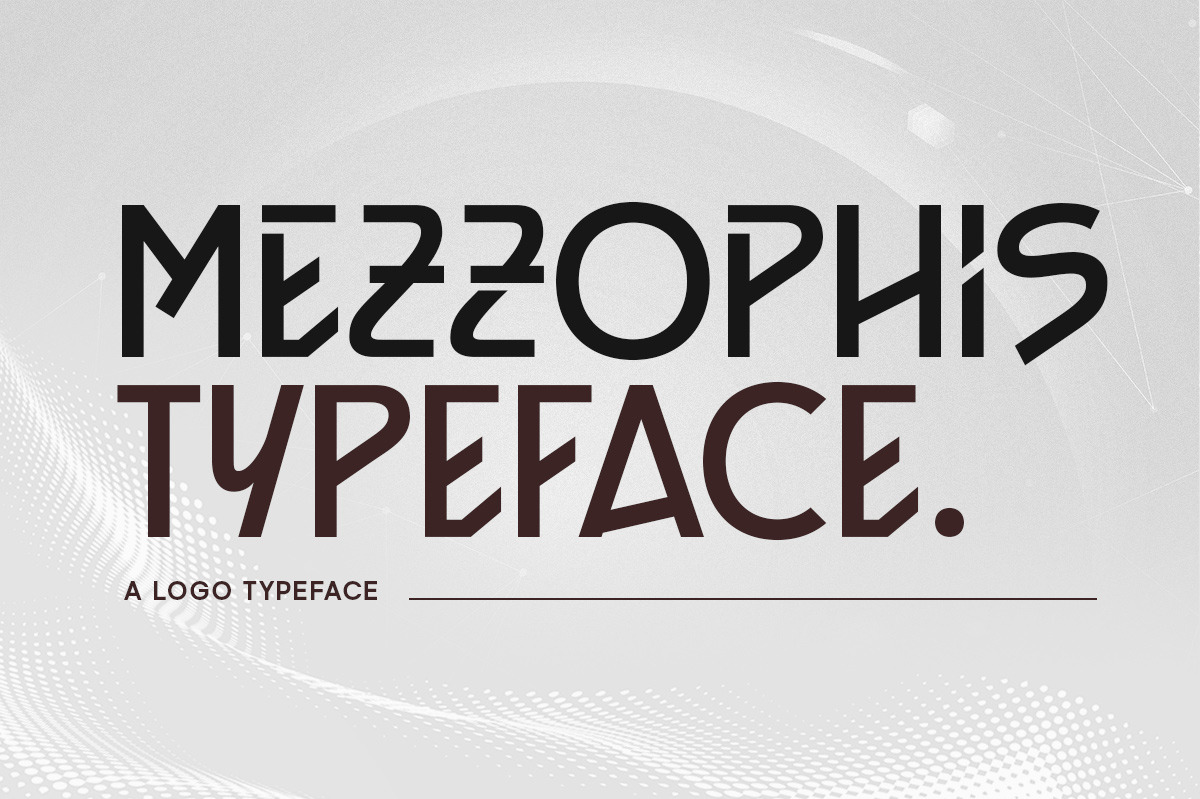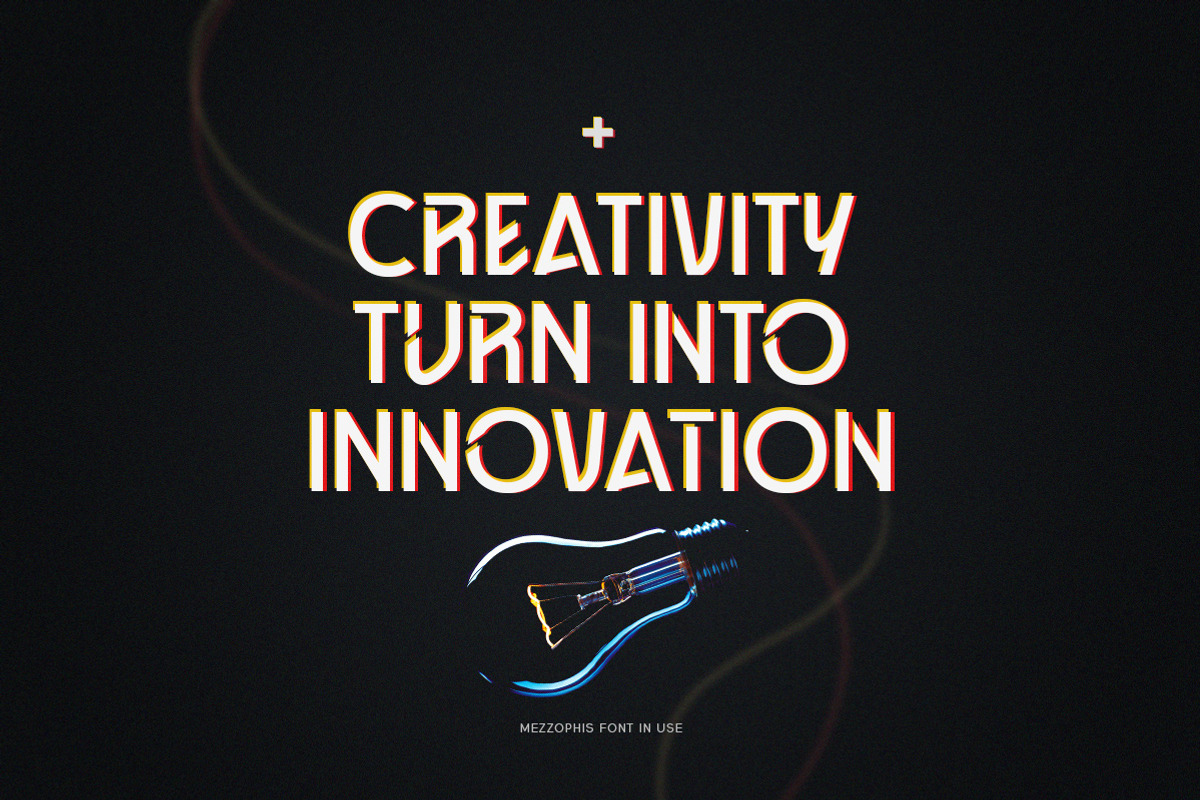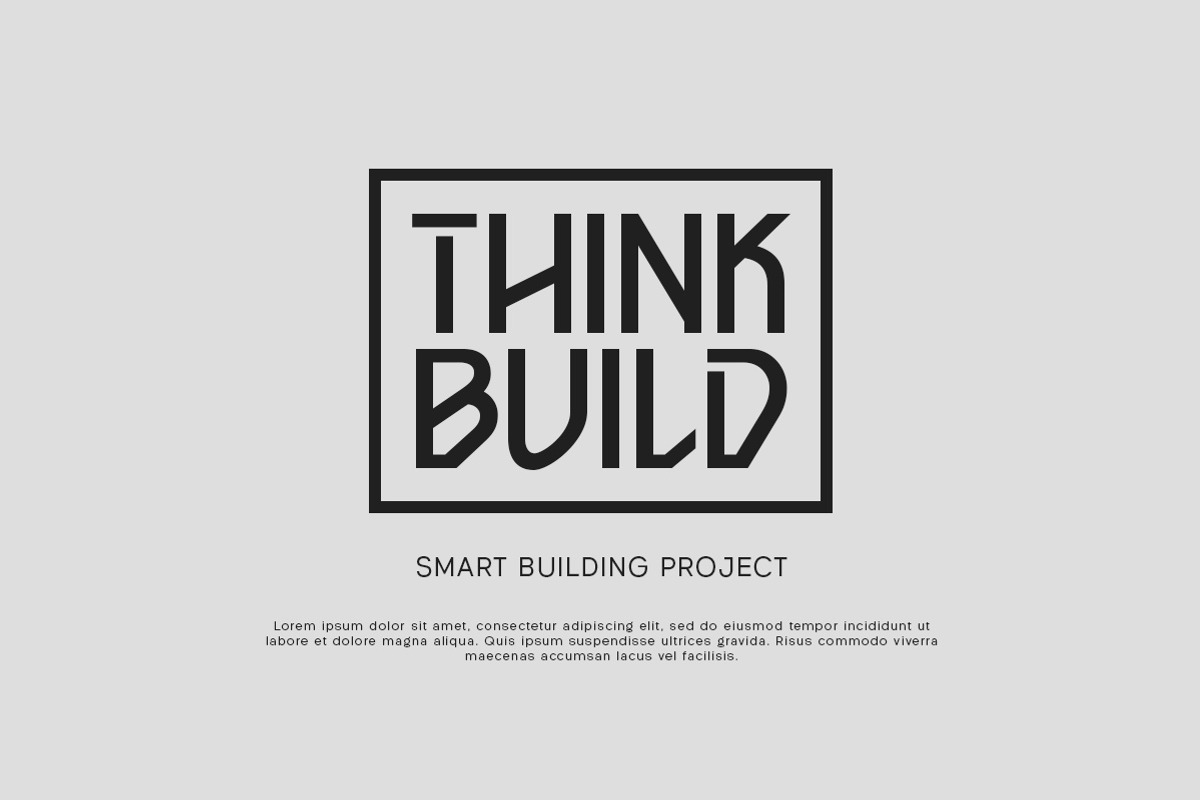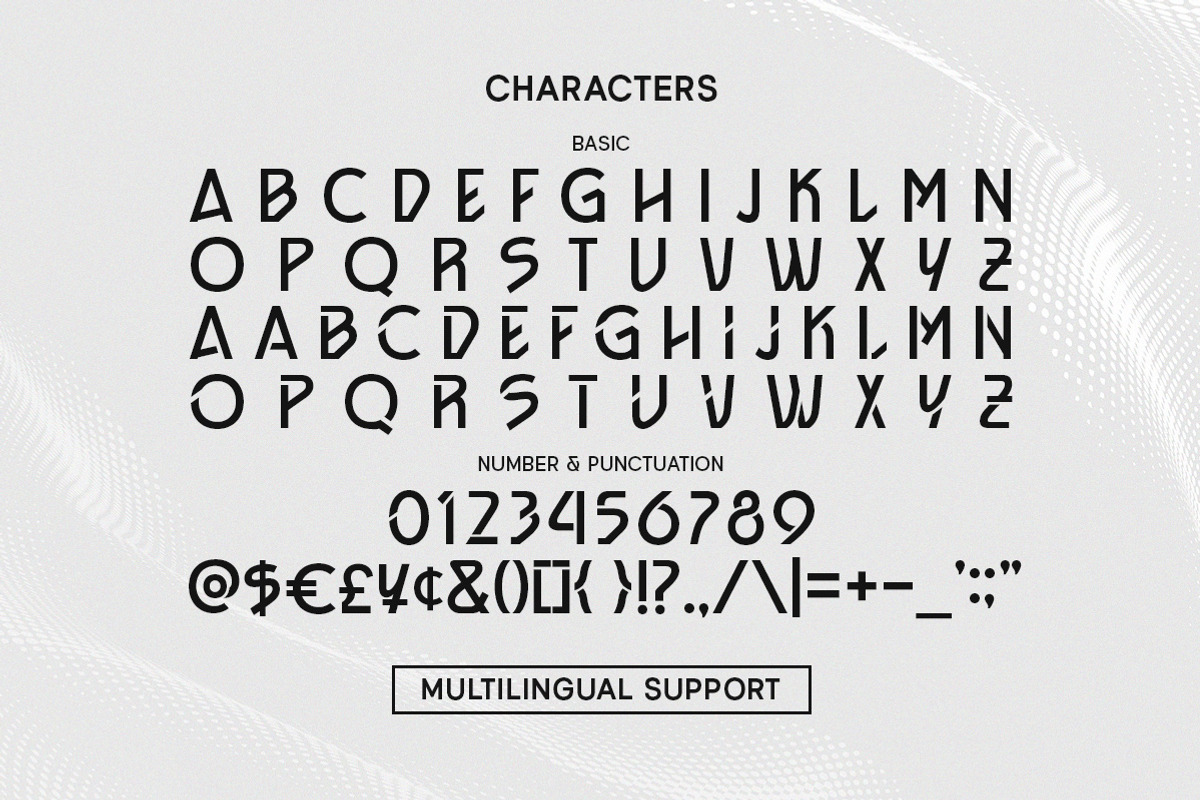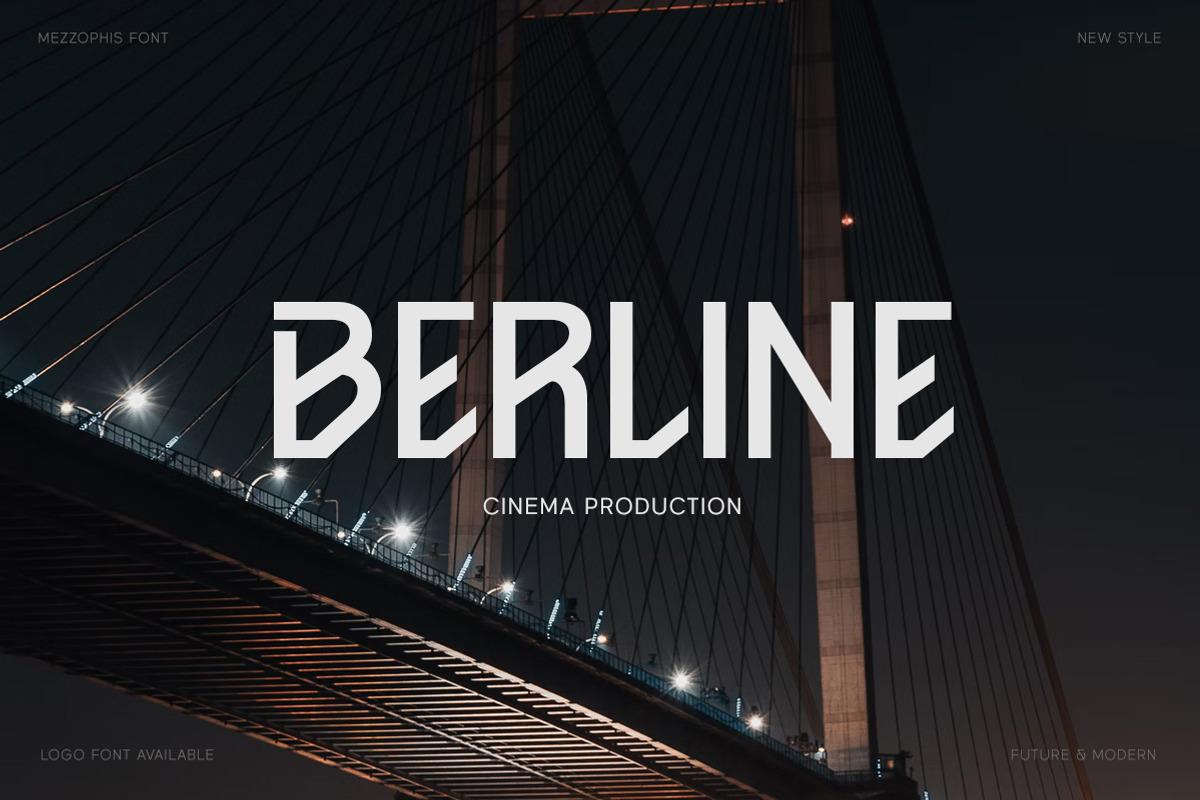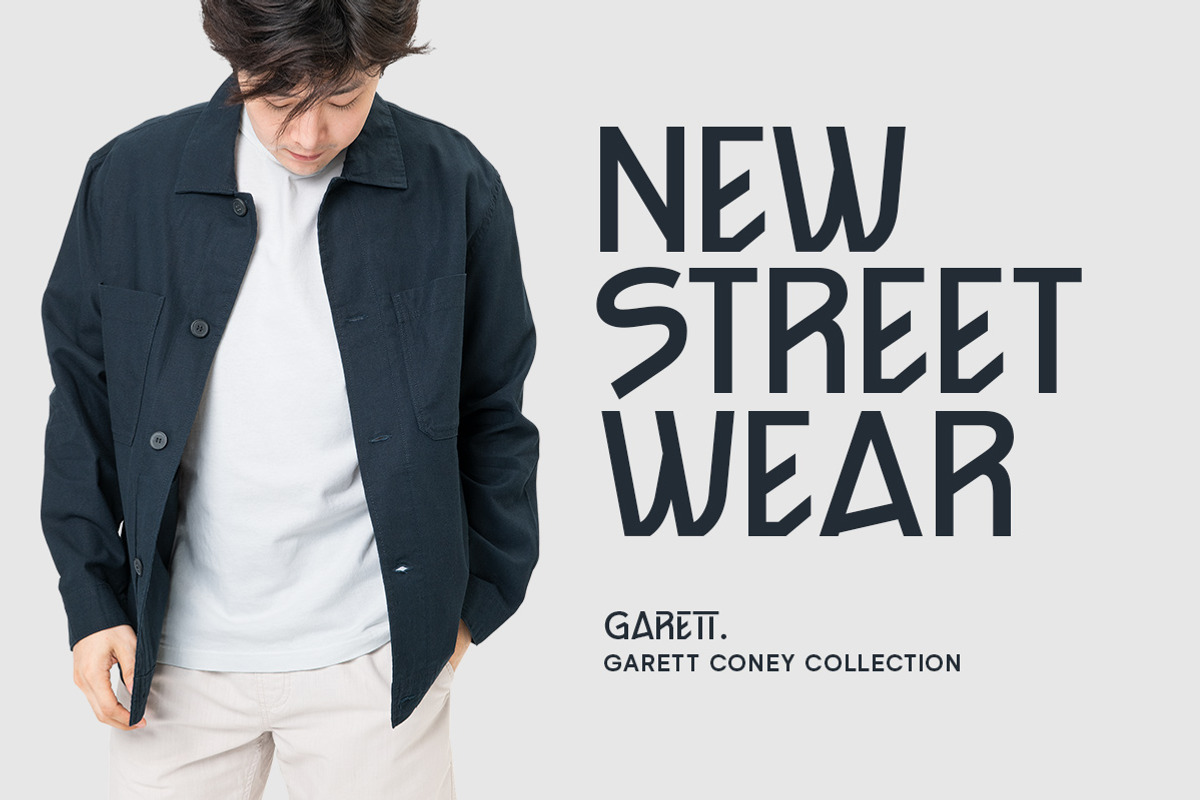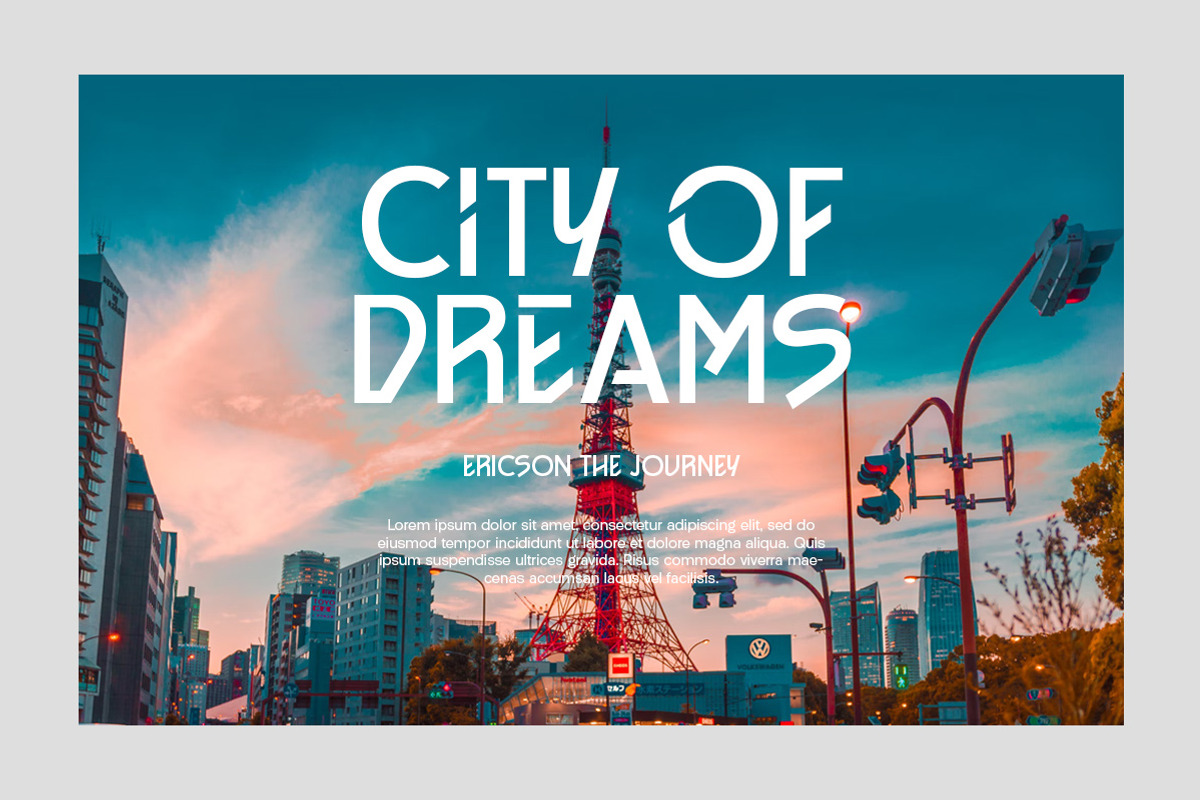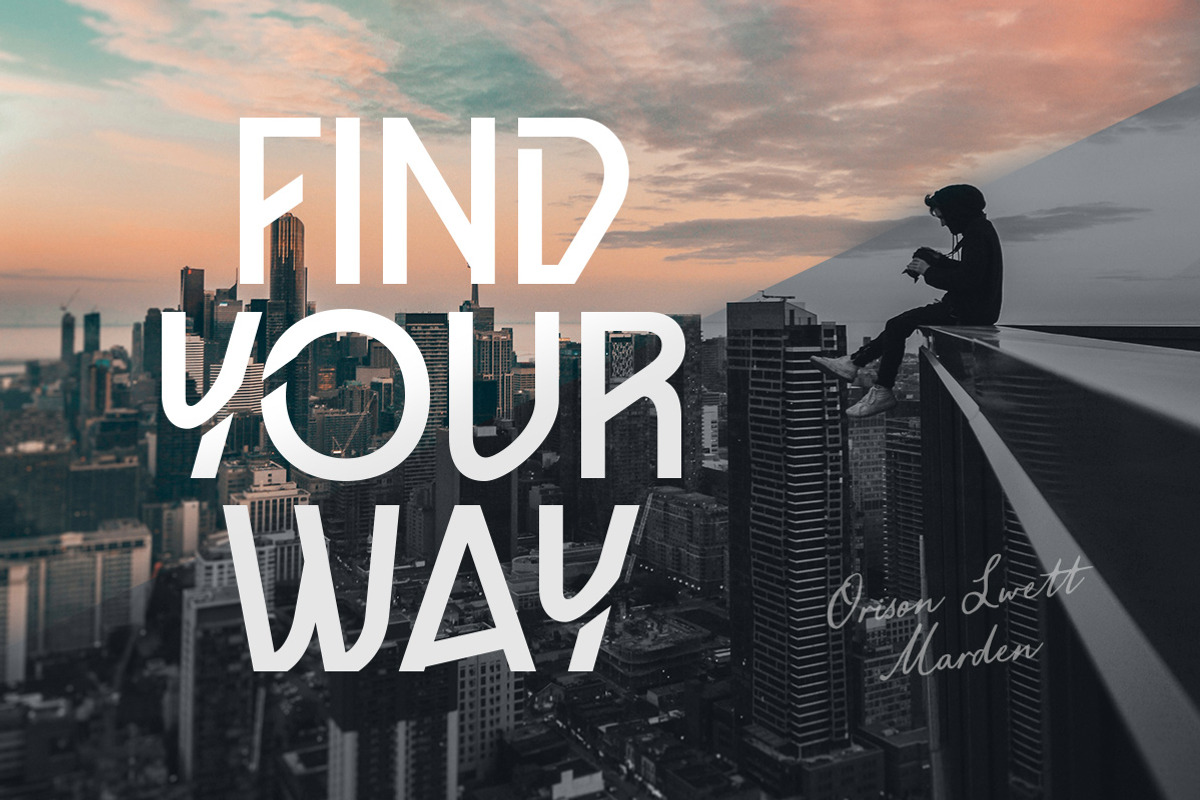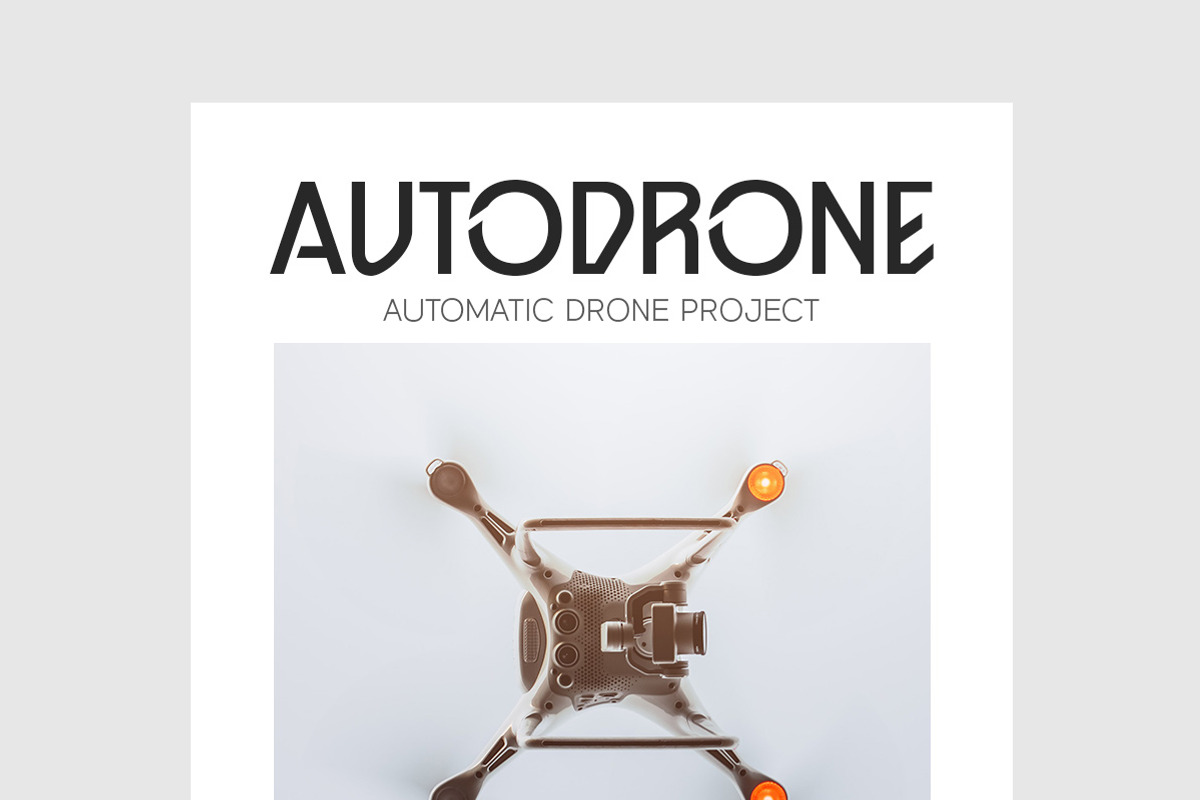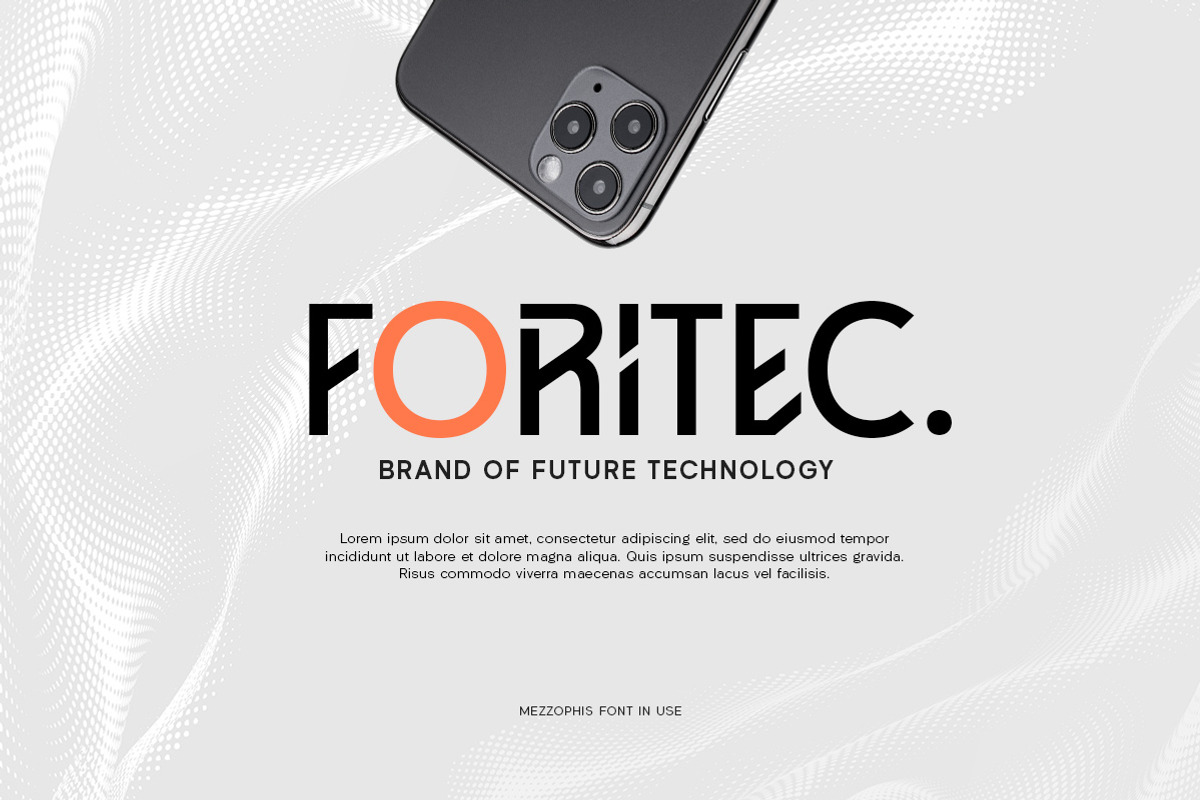
Mezzophis Typeface
Mezzophis Typeface is a unique typeface which is speciality made for a logotype. it's also have techno and futuristic feel. This type of font perfectly made to be applied especially in logo, headline, signage and the other various formal forms such as invitations, labels, logos, magazines, books, greeting / wedding cards, packaging, fashion, make up, stationery, novels, labels or any type of advertising purpose.
- alternates / swashes and ligatures